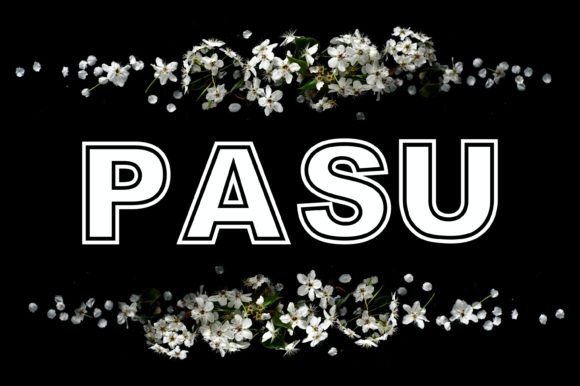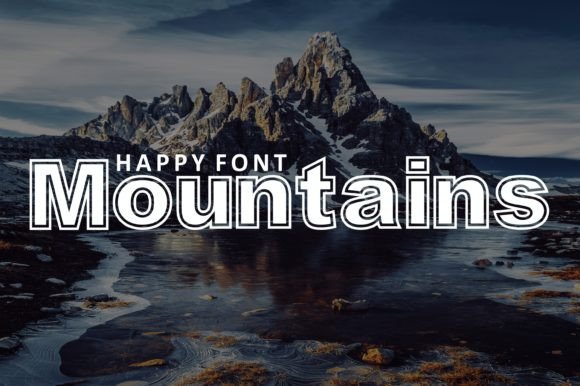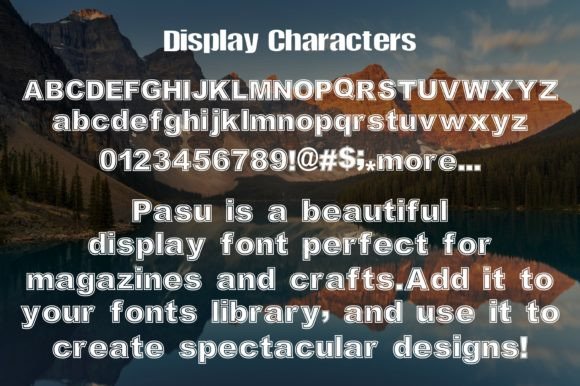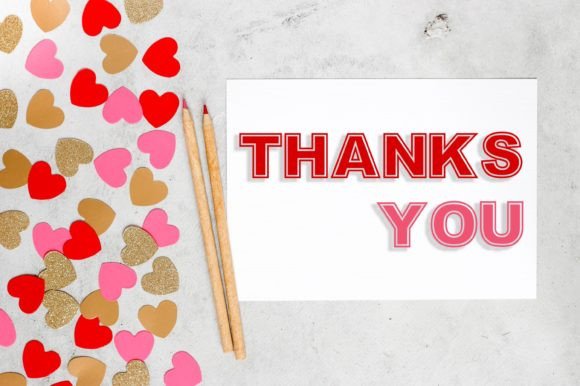
Introduction to Pasu Font
As a designer, there’s nothing quite like the thrill of discovering a new font that sparks your creativity. You’re working on a project, and suddenly, the perfect typography comes to mind. It’s like a symphony of letters, harmonizing with your design and elevating it to the next level. For me, that moment happened when I stumbled upon the beautiful Pasu Font. Its elegant lines and refined aesthetic made it an instant favorite, and I knew I had to share it with fellow designers.
Pasu Font is a high-quality display font that’s perfect for magazines, crafts, and any creative project that requires a touch of sophistication. With its transparent background, it’s easy to layer and combine with other design elements, making it a valuable resource for designers. Whether you’re working on a new magazine layout or designing a custom craft, Pasu Font is sure to add a professional touch to your work.
Pasu Font Key Features
- High-quality, free font for creative projects, ideal for designers and artists
- Transparent background, allowing for easy layering and customization in design projects
- Includes a wide range of characters, including Latin, Cyrillic, and Greek alphabets, making it suitable for multilingual projects
- Resolution-independent, ensuring crisp and clear text display regardless of screen resolution or device
- Perfect for graphic design, digital art, and other creative pursuits, where a unique and stylish font is essential
Honest Review: Pasu Font
I recently stumbled upon the Pasu Font, and I must say it’s a high-quality addition to my design resource library. The best part? It’s completely free to download, making it an excellent choice for any creative project.
- ✨ Unique and modern design aesthetic that can add a fresh touch to any project
- ✨ Highly legible and clear, making it perfect for body text or headlines
- ✨ Includes a transparent background option, allowing for seamless integration into various design elements
- ⚠️ Limited character set, which may not be ideal for projects requiring a wide range of characters
- ⚠️ May not be as versatile as other fonts, which can limit its use in certain design scenarios
Overall, the Pasu Font is a solid choice for designers looking for a modern and clean font to add to their projects. While it may have some limitations, its unique design and high-quality feel make it a worthwhile download. Whether you’re working on a personal project or a commercial design, the Pasu Font is definitely worth considering.
Tips for Getting the Most Out of Pasu Font
Use Pasu Font in creative projects, such as graphic design, digital art, and typography. Take advantage of its transparent background feature to create stunning designs. You can also use Pasu Font in conjunction with other design resources to enhance your design projects.
Pasu Font is ideal for use in logos, branding materials, and marketing materials. It’s also a great choice for digital art, typography, and creative projects that require a high-quality, free download font.